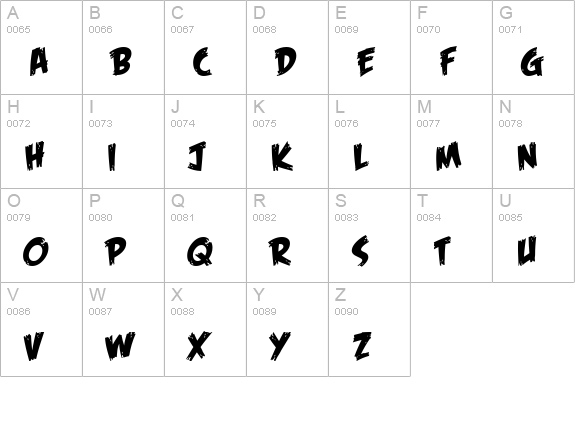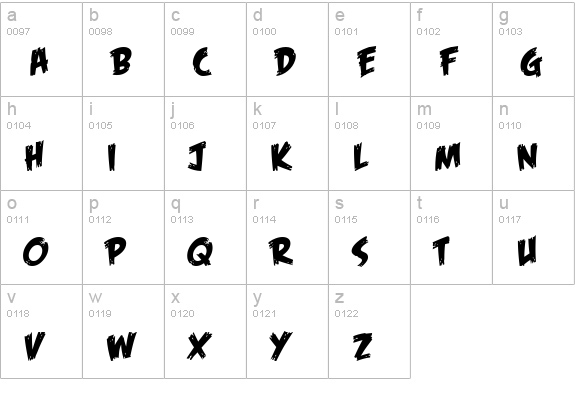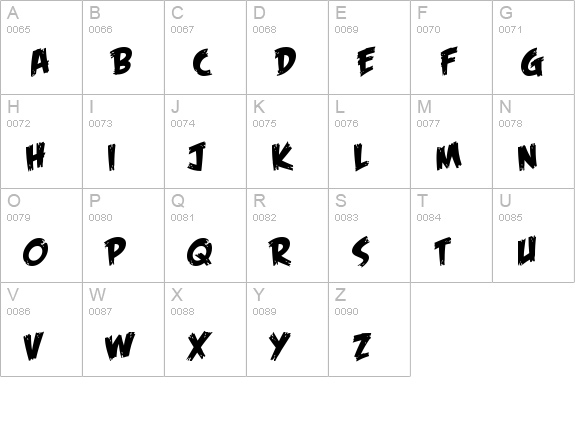
Feast of Flesh BB Font Details
Feast of Flesh BB font is a stunningly bold and unique typeface that is sure to captivate any audience. Its sharp edges and intricate details give it a distinctive appearance that commands attention and makes a lasting impression. With its powerful and slightly sinister aesthetic, this font is perfect for designs that need a touch of edginess and intrigue. What sets Feast of Flesh BB font apart is not just its striking appearance, but also its availability. Unlike many other fonts on the market, Feast of Flesh BB font is completely free to download. That's right, you can access this remarkable typeface at no cost, making it an excellent resource for both personal and commercial projects. Whether you're working on a poster, a logo, or any other creative endeavor, Feast of Flesh BB font will add a touch of character and intensity that is sure to elevate your design. Its versatility ensures that it can be used across a wide range of themes and concepts, from horror and Halloween-themed projects to bold and impactful branding. To get your hands on this incredible font, simply head over to FontsMarket.com, where it is freely available for download. FontsMarket.com is a trusted and reliable platform for font enthusiasts, offering a vast selection of high-quality fonts to suit every style and preference. So, why wait? Embrace the captivating allure of Feast of Flesh BB font and unleash its creative potential in your next project. Download it now, for free, and let your designs stand out from the crowd with this remarkable typeface.